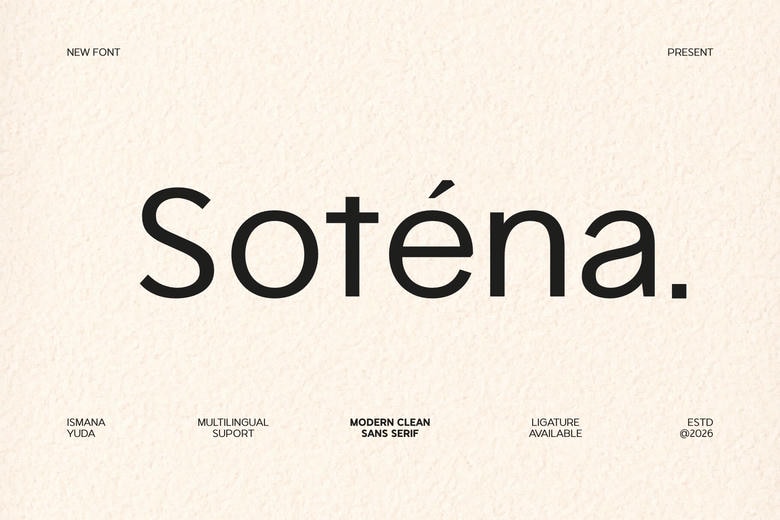
Soténa is a contemporary and multi-purpose typeface designed by Ismana Yuda. It is described as a Clean Sans Serif version, which is Modern, characterized by the simplicity of its lines and the amount of readability. The font is designed with multiple modern capabilities such as multilingual support of different accents and ligatures to improve the harmony of types.
Needing to create a luxurious corporate identity, a smooth mobile interface, or clean upscale editorial designs, Sotenka offers the accuracy and unobtrusive design needed to make a good-better-best design.
Sotena Sans Serif Font